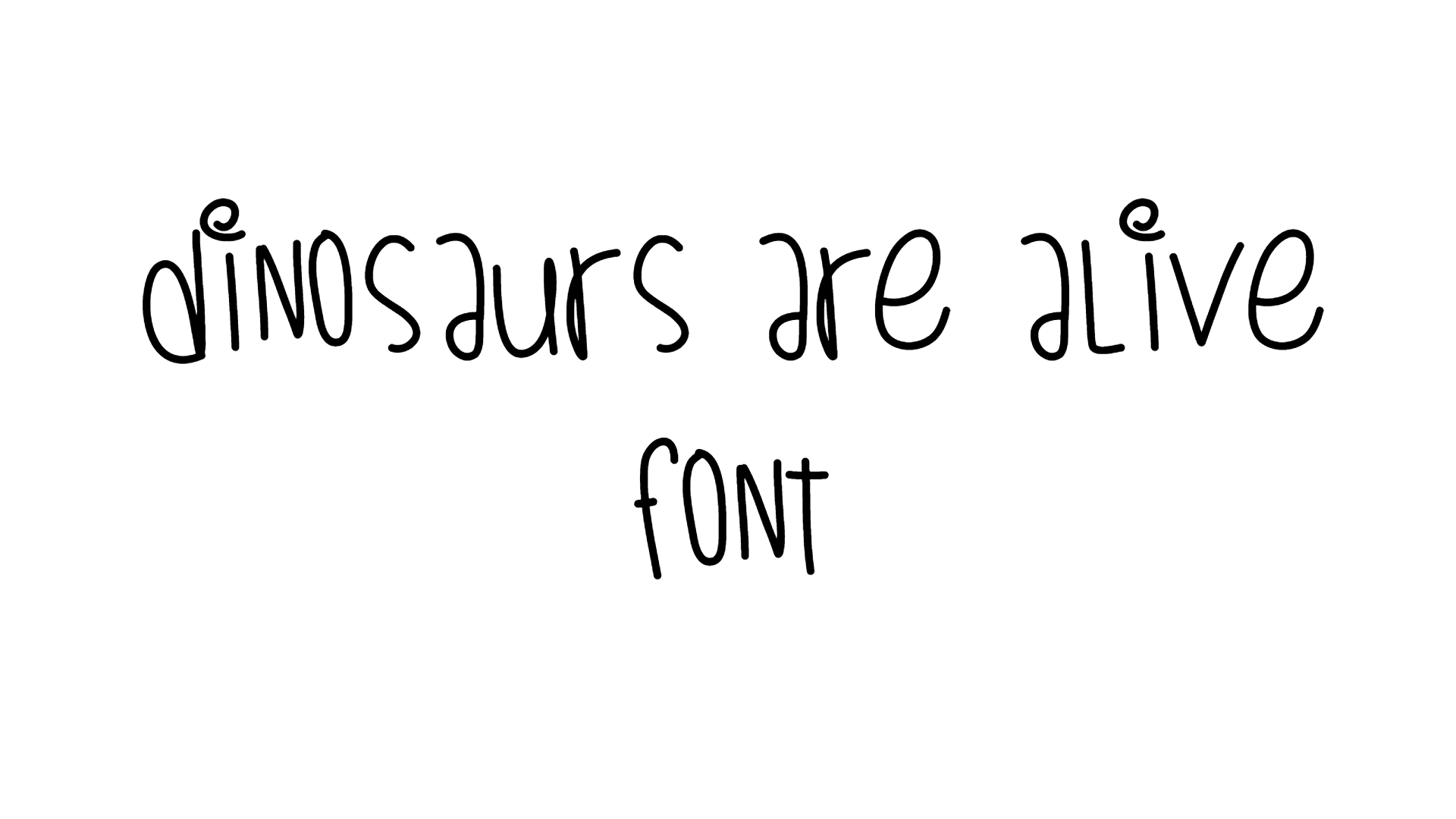
Dinosaurs Are Alive font
Des Gomez (des805) designed Dinosaurs Are Alive, a playful, friendly handwritten doodle typeface. Created with a distinct kid-friendly personality, it features highly casual, uneven marker-style line configurations that replicate handmade classroom lettering or bullet journal layouts.
Dinosaurs Are Alive is a handwritten font. It looks like someone actually wrote it by hand: relaxed, friendly and a little imperfect in a good way. You can download it for free and test it with your own words in the preview above.
What You Can Type With Dinosaurs Are Alive
With complete upper and lowercase letters and all ten digits, Dinosaurs Are Alive is ready for real wording, not just a single headline. Common punctuation such as &, !, ? and @ is included as well. It doesn't include accented letters such as é or ñ, which makes it an English-only font.
Where Dinosaurs Are Alive Works Best
Think of Dinosaurs Are Alive for greeting cards, journal pages and friendly social posts. Set it a bit larger than you would a normal text font. Handwriting styles lose their charm once they get too small to read comfortably.